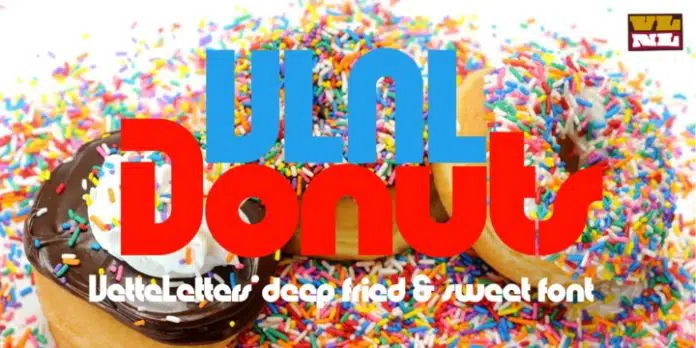
VLNL Donuts Font
VLNL Donuts Font is perfect for bakery shop signage, donut store branding, sweet treat packaging, candy shop logos, dessert restaurant menus, confectionery advertising, fun food truck graphics, playful cafe materials, delicious pastry promotions, and tempting sweet shop campaigns.
VLNL Donuts Font is exciting because it captures the delicious appeal and irresistible sweetness of freshly glazed donuts through round, tempting letterforms that evoke sugary satisfaction, bakery warmth, and indulgent pleasure with mouth-watering charm. This deliciously designed typeface combines bakery tradition with contemporary functionality, making it perfect for food brands that want to communicate sweet indulgence, comfort food appeal, and irresistible bakery freshness that satisfies every craving.
The VLNL Donuts Font family includes sweet weights with donut-inspired character styling, featuring circular design elements and bakery decorative variations. The font showcases glazed design details, bakery-optimized proportions, and delicious character characteristics that create a comprehensive typographic system for sweet and comfort food brand applications.
The bakery sophistication of VLNL Donuts Font makes it an invaluable tool for donut shops, bakeries, and sweet treat companies that need typography capable of communicating delicious quality and irresistible appeal. The font's tempting character helps establish connections with customers seeking comfort food experiences, sweet indulgences, and authentic bakery traditions that satisfy cravings for genuine homemade goodness.
Donut shops, bakeries, and dessert retailers consistently choose VLNL Donuts Font for its ability to convey sweet temptation and bakery sophistication through typography. The font excels in applications where establishing food quality credibility and irresistible appeal are essential to brand positioning, making it particularly effective for bakery products, sweet treats, and comfort food brands targeting dessert-loving consumers.
This font's comprehensive character set includes donut-inspired letterforms, sweet numerals, bakery punctuation marks, and confectionery symbols that support authentic sweet treat typography composition. The consistent delicious styling maintains the donut bakery theme throughout all characters while ensuring professional readability across all bakery and sweet food design projects requiring VLNL Donuts Font Free Download functionality.